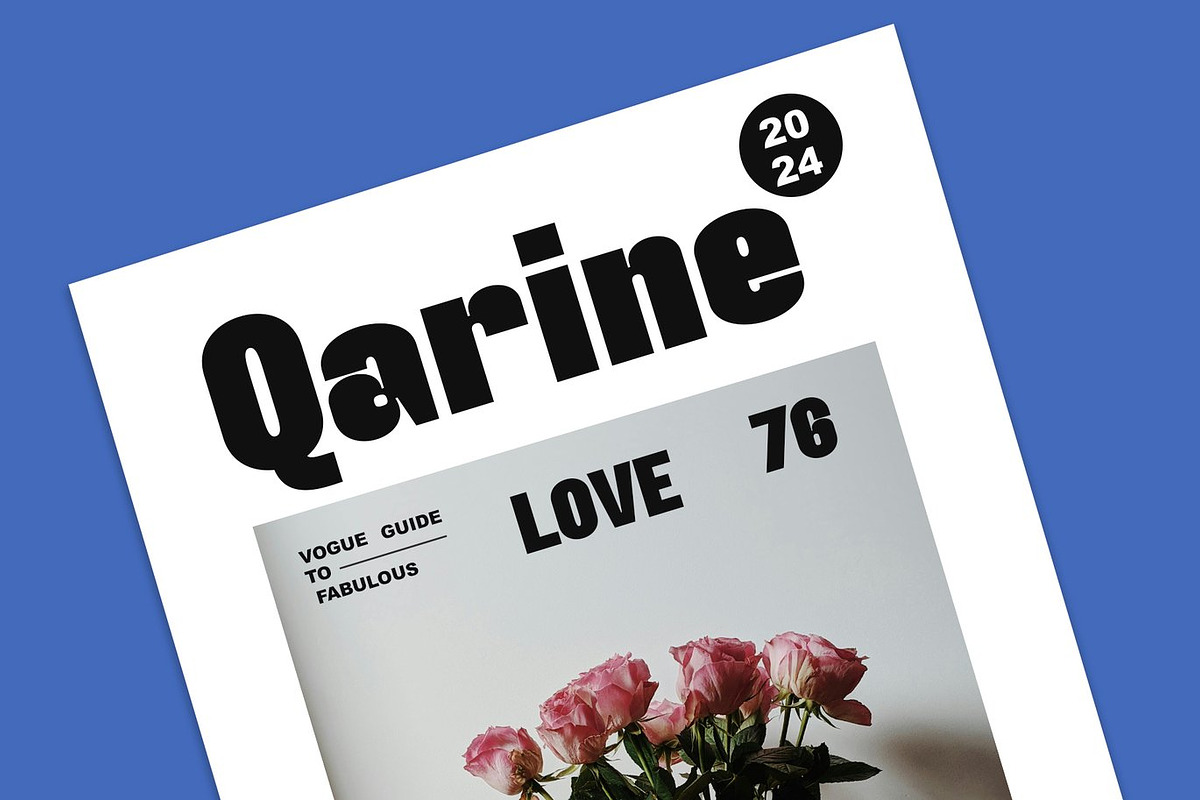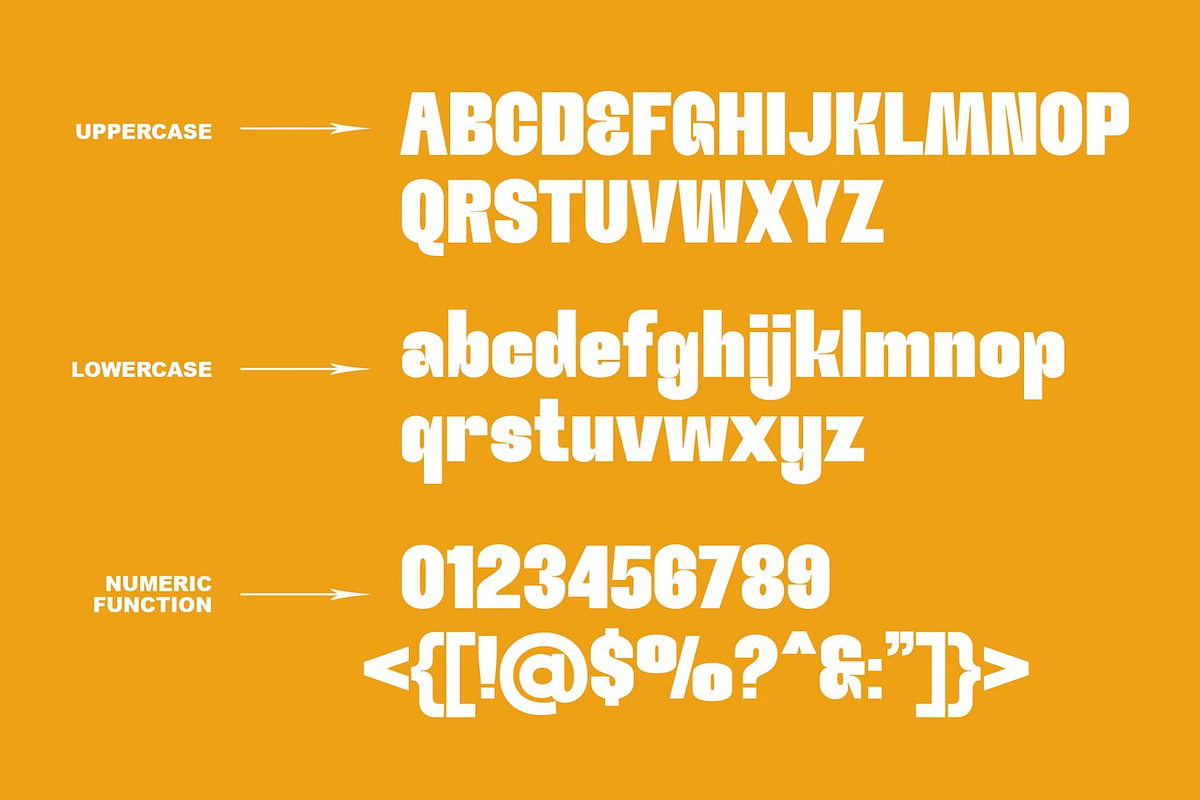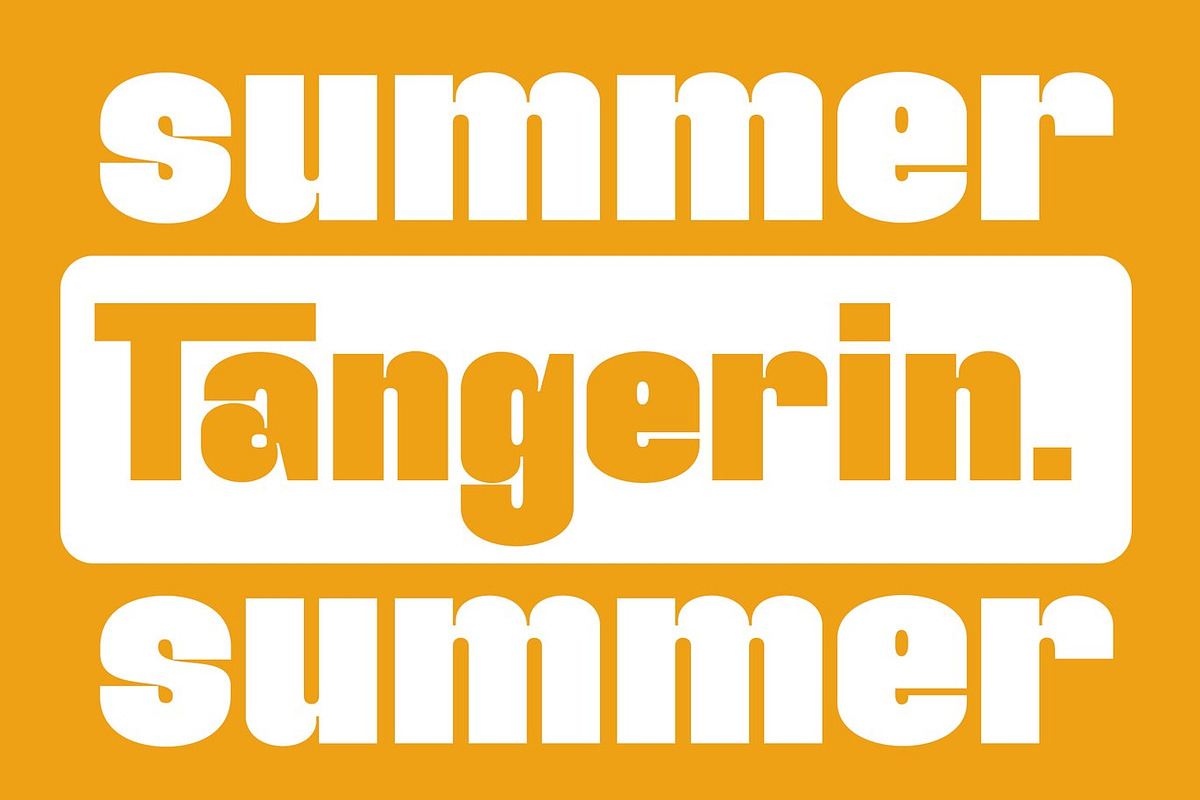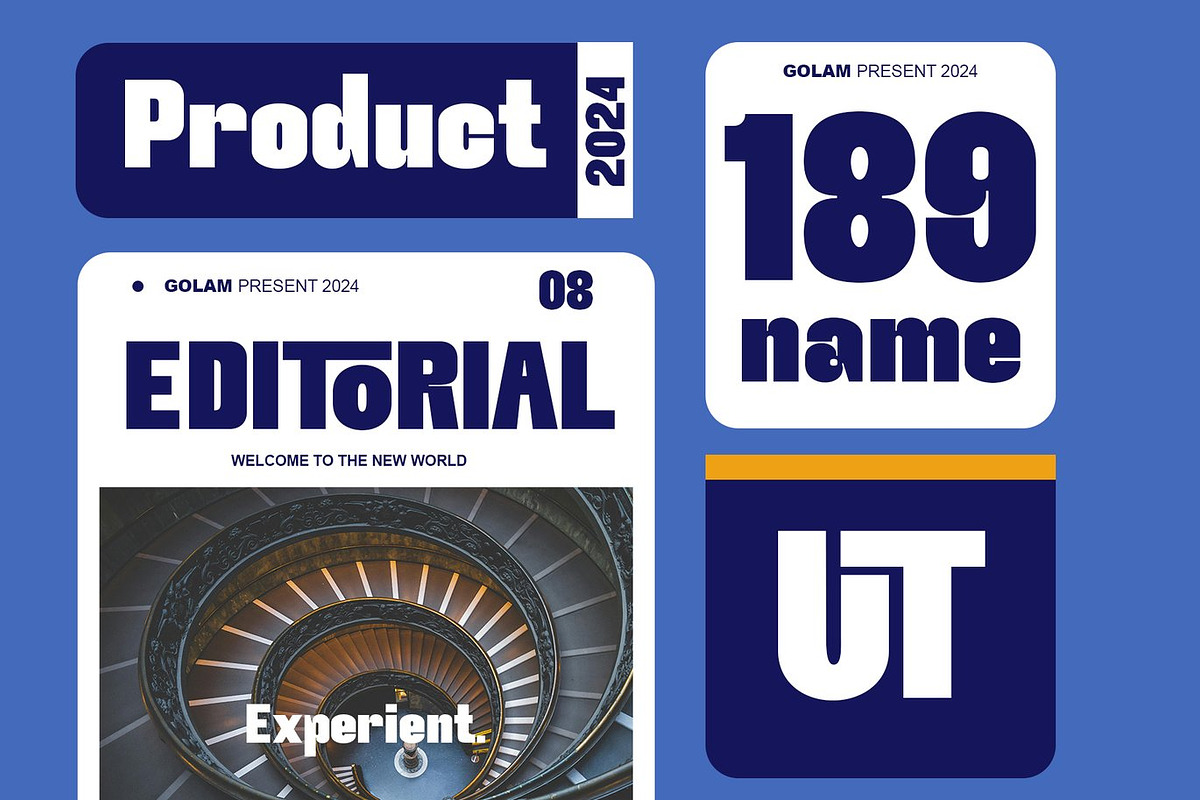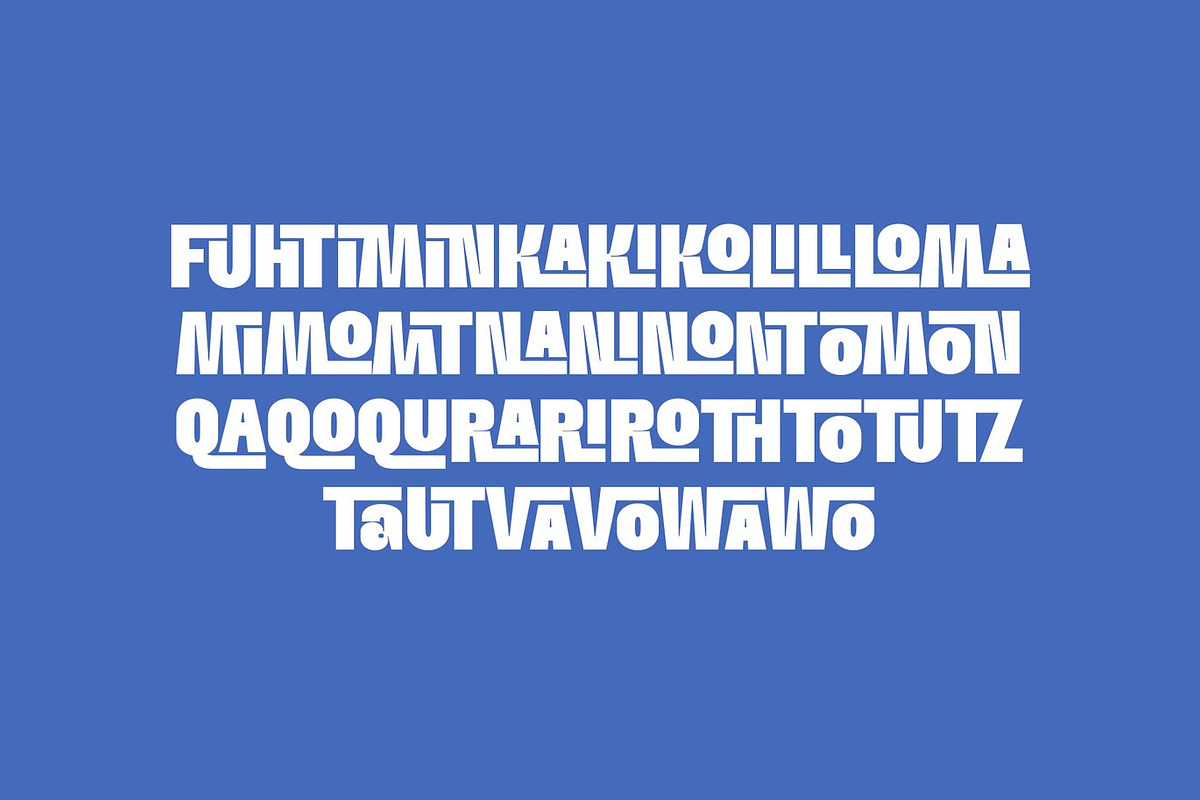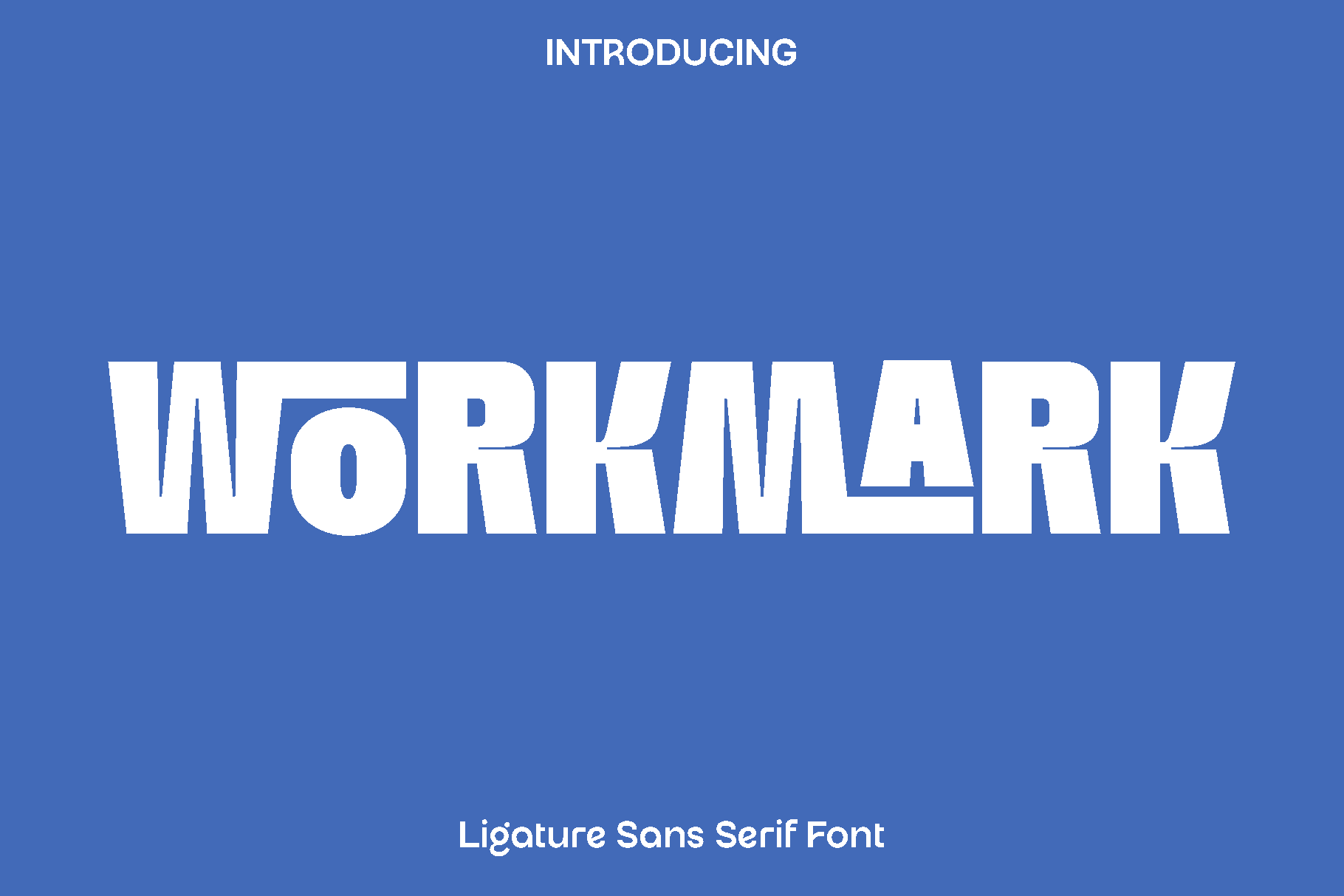
Workmark - Ligature Sans Serif Font
Workmark is a modern and versatile typeface designed to support creativity across a wide range of design projects. Built with a clean structure and balanced proportions, Workmark was created to offer both functionality and style, making it a dependable choice for designers who want clarity without sacrificing personality. Its approachable and contemporary look gives your typography a confident presence while remaining highly readable.
Inspired by the needs of everyday design, Workmark shines in both professional and creative settings. It works beautifully in books, magazines, branding, logos, photography overlays, blog headers, posters, and advertising materials. Whether you are building a strong visual identity or crafting engaging editorial layouts, Workmark adapts seamlessly and keeps your designs looking polished and cohesive.
Workmark feels modern, practical, and expressive. The carefully designed letterforms provide a smooth reading experience while its subtle character adds visual interest. From large headlines to body text, this typeface maintains consistency and clarity, helping your message stand out across print and digital platforms.
Designed for flexibility and ease of use, Workmark is an essential addition to any designer’s toolkit. Its multilingual support and OpenType features ensure it performs reliably in global and professional projects, making it suitable for a wide range of creative needs.
Workmark Font Features:
• Uppercase and lowercase characters
• Numerals and functional glyphs
• Ligatures included
• Multilingual support
• OpenType features